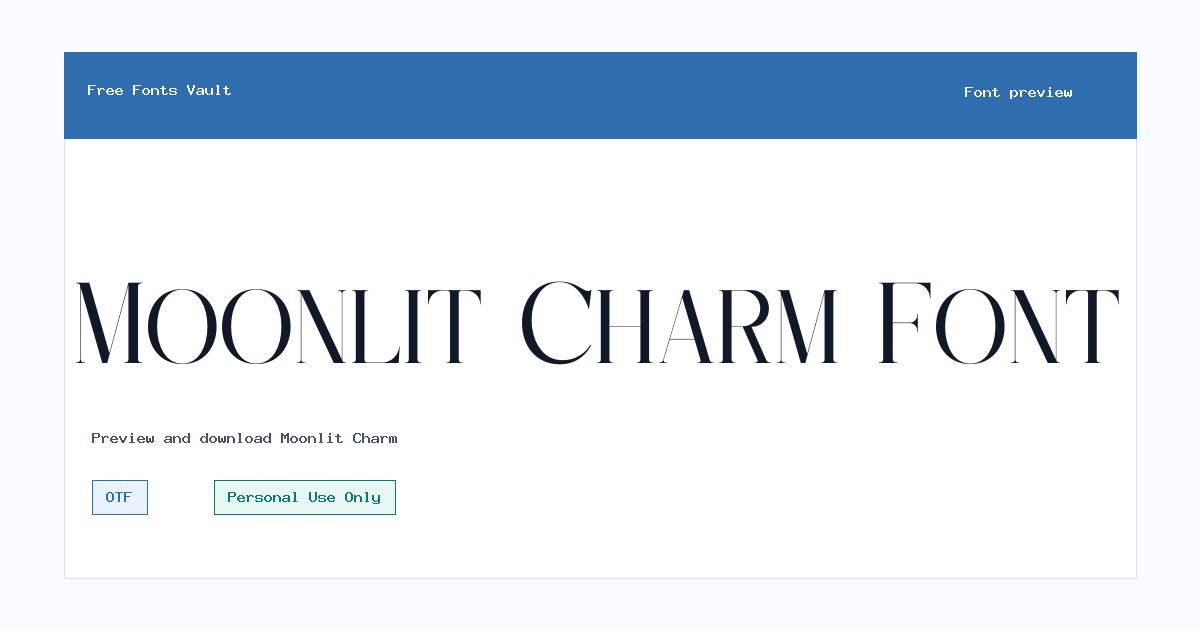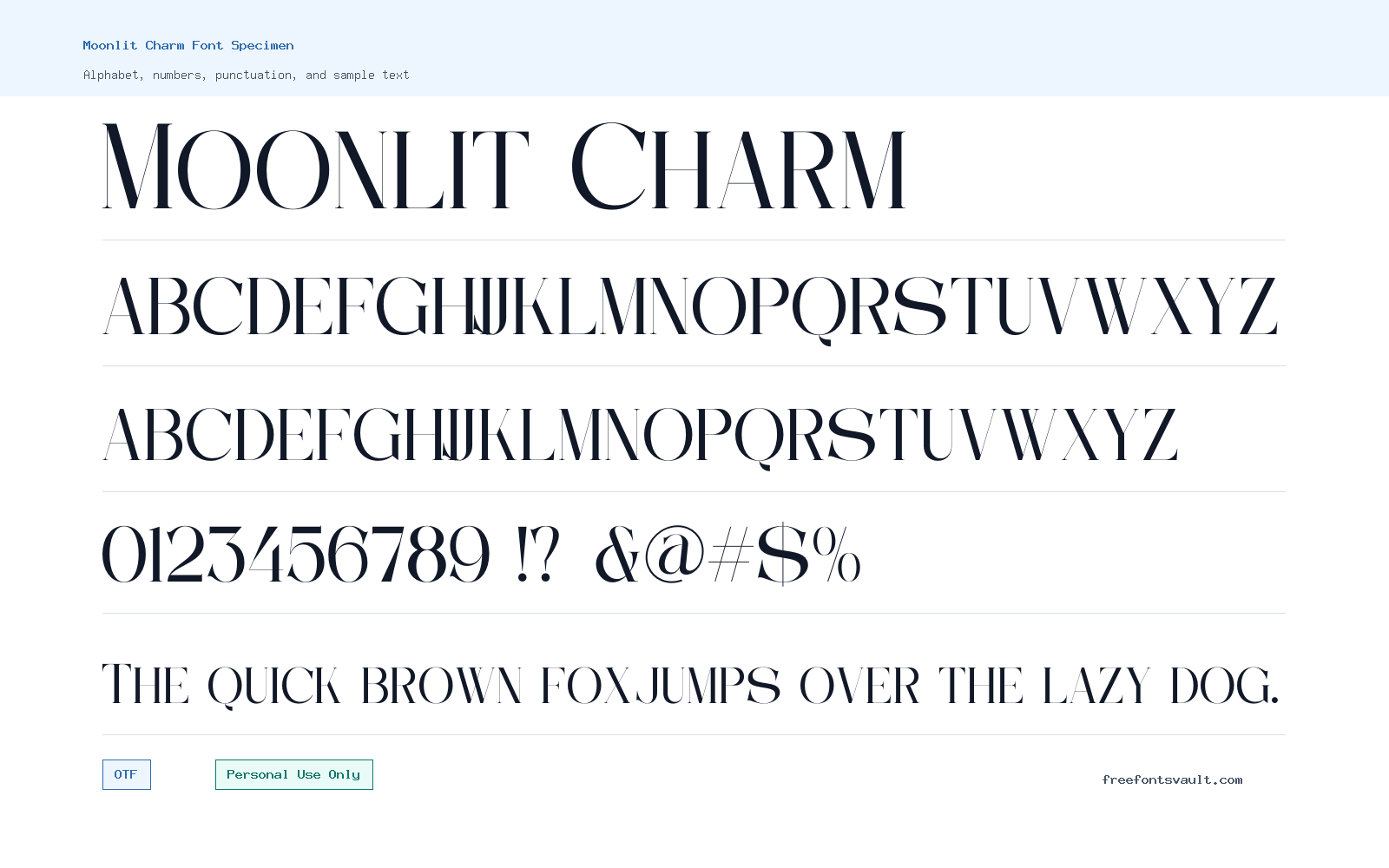
Moonlit Charm
Moonlit Charm font preview showing the family name
Moonlit Charm font specimen showing alphabet, numbers, and sample text
Moonlit Charm is a serif font with a refined, decorative feel that works best when you want a title or short phrase to look polished without feeling too heavy.
• Best suited for display text, titles, names, and short design phrases
• Wedding invitations, greeting cards, and romantic headline layouts
• Boutique branding concepts, packaging mockups, quote graphics, and social media titles
Moonlit Charm is credited to designer Heru Utama Putra and foundry TimelessType.co.
What is Moonlit Charm best used for?
It is best for short display text such as invitations, names, titles, branding drafts, packaging concepts, and quote images. It is not the best choice for long paragraphs.
Who designed Moonlit Charm?
The font is credited to Heru Utama Putra, with TimelessType.co listed as the foundry.
How should I pair Moonlit Charm?
Use Moonlit Charm for the main words and pair it with a simple sans serif or readable text font for smaller details. This keeps the design clear and prevents the layout from feeling crowded.